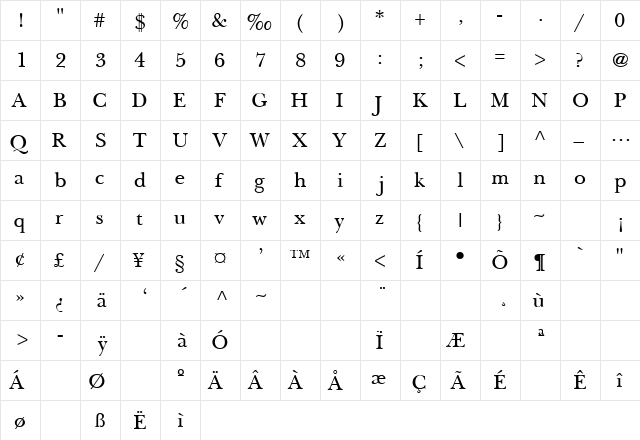
BaskervilleLightSSK Regular
Design Context for BaskervilleLightSSK Typeface
BaskervilleLightSSK is a composed and adaptable typeface that performs quietly and consistently across a wide range of design contexts. Its slender proportions lend an understated elegance to any composition.